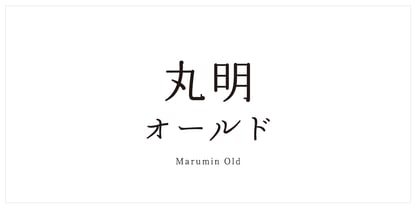
Marumin Old StdN
by Kinuta Font Factory
The Marumin Old StdN Font Family was designed by and published by Kinuta Font Factory. Marumin Old StdN contains 1 styles. More about this family
The kana characters in Marumei Old have a nostalgic, modern design. Kana characters are much smaller than kanji characters, but they fit neatly and legibly whether assembled vertically or horizontally.